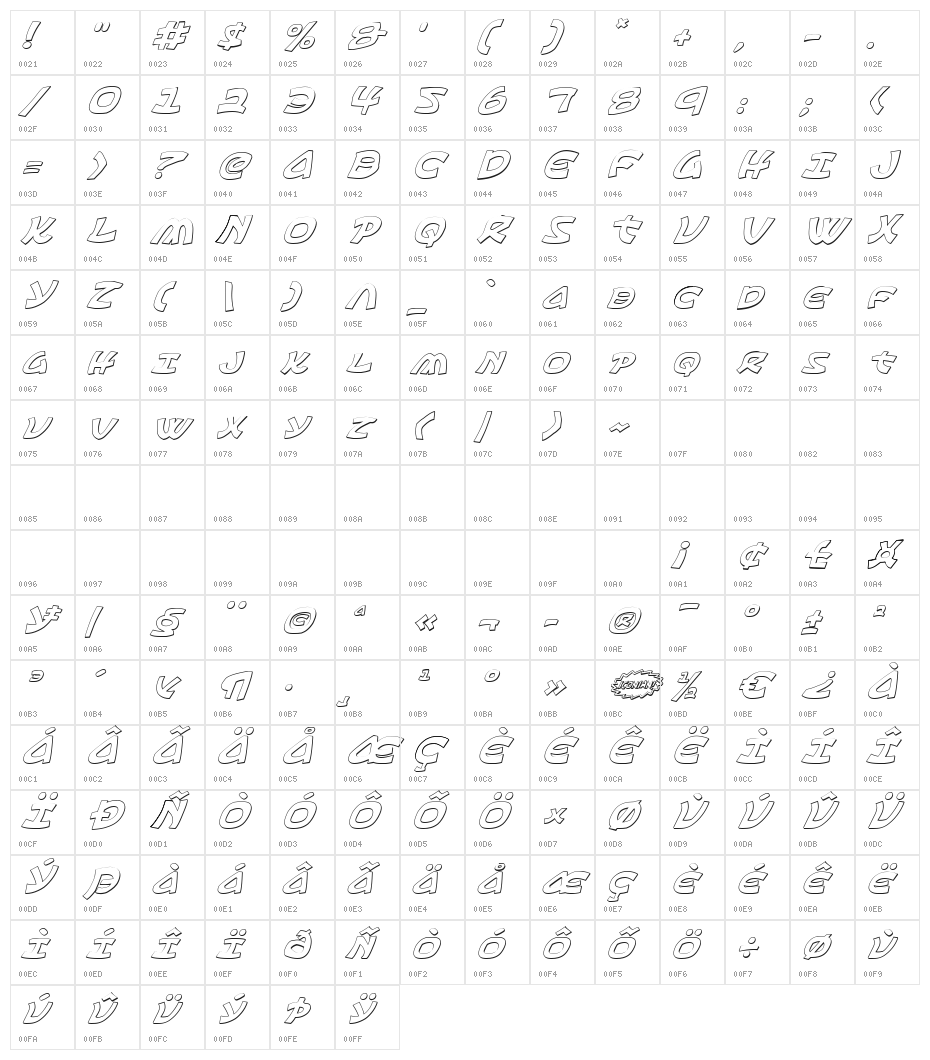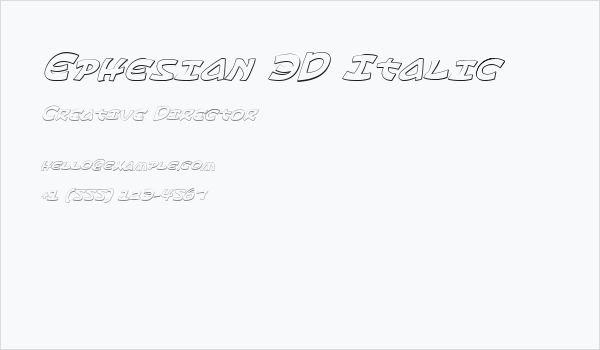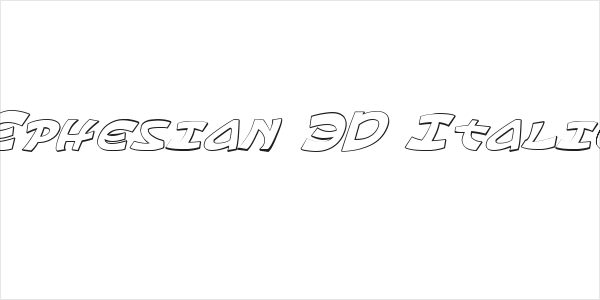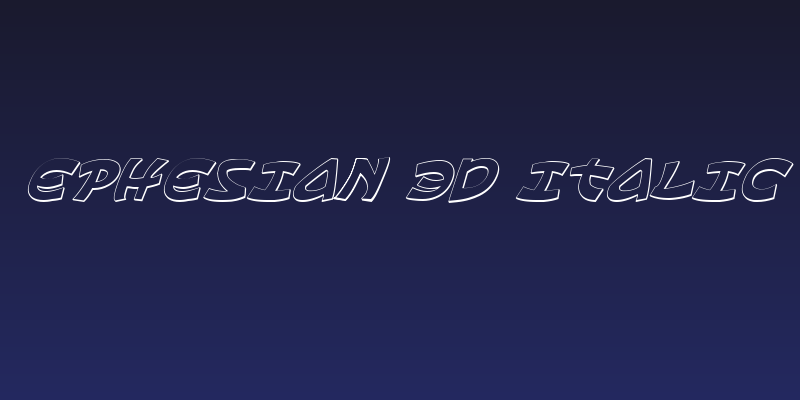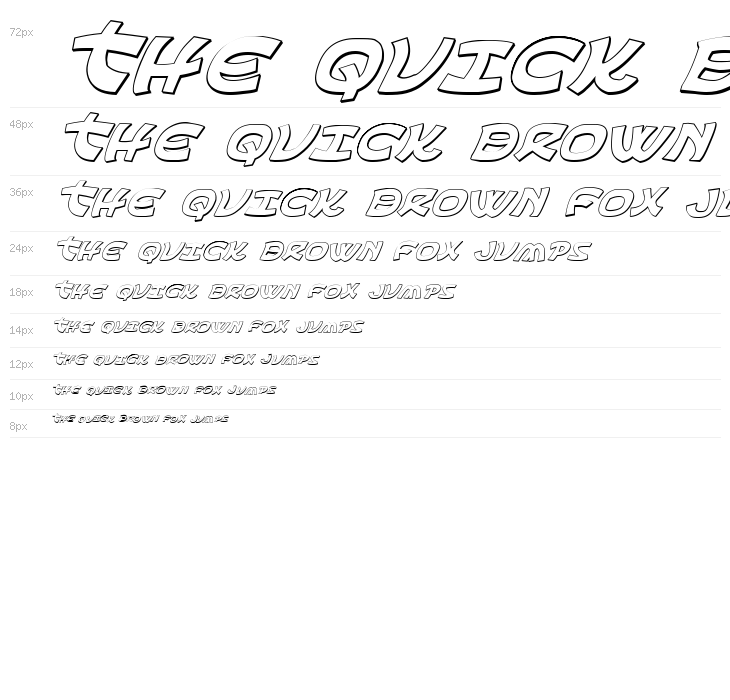
Ephesian 3D Italic Font
Ephesian 3D Italic Description
This font features a bold, three-dimensional appearance with a playful and dynamic style. The letters are italicized, giving a sense of motion and energy. The strokes are thick, with a consistent width that enhances the 3D effect. The characters are outlined, adding depth and a shadow-like quality. The overall design is modern and eye-catching, suitable for projects that require a fun and engaging look. The spacing between characters is normal, ensuring readability while maintaining the font's unique style.